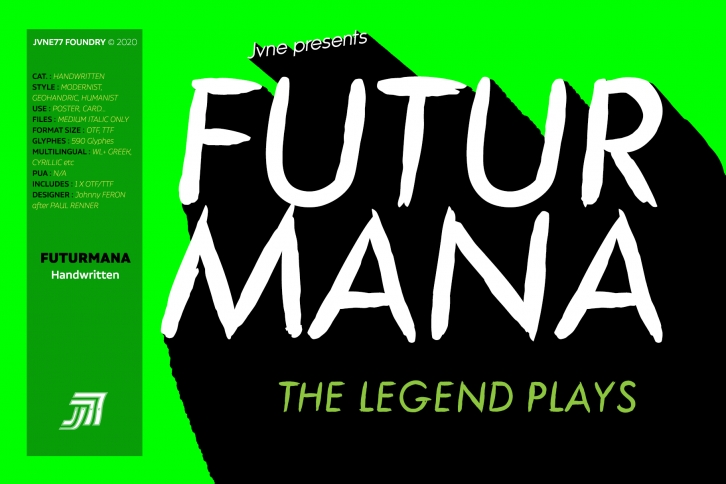
Futurmana is a trendy and unique font with an authentic style. It was designed by Jvne77 and it's a great choice for creative people who need such a font. It was released on January 12, 2020 and the file size is 6.97 MB. Futurmana will add an organic vibe to any design idea!